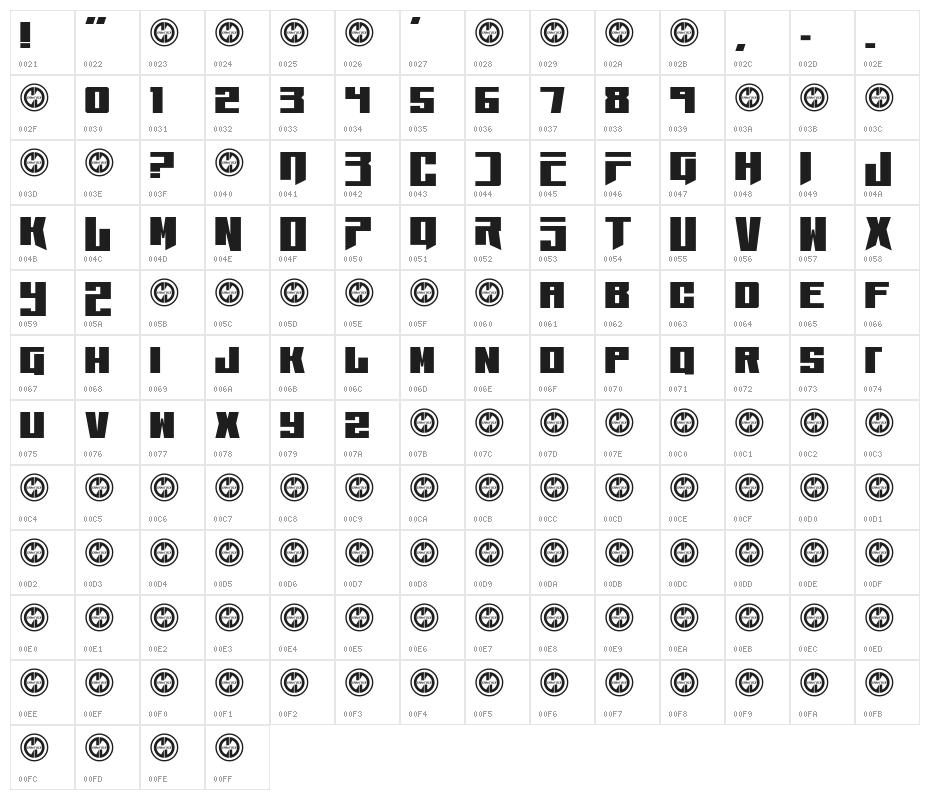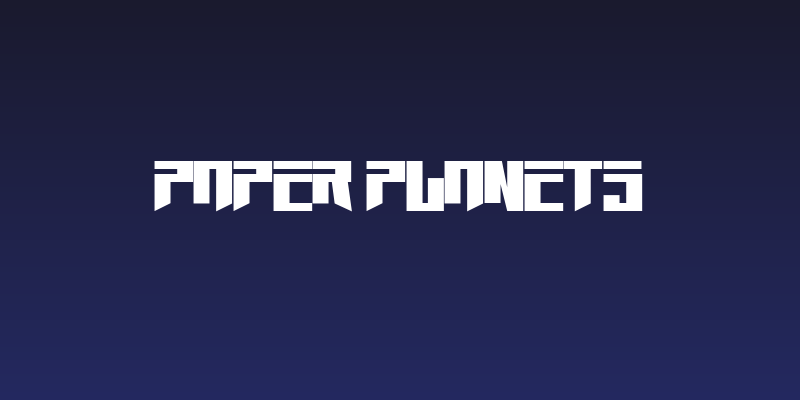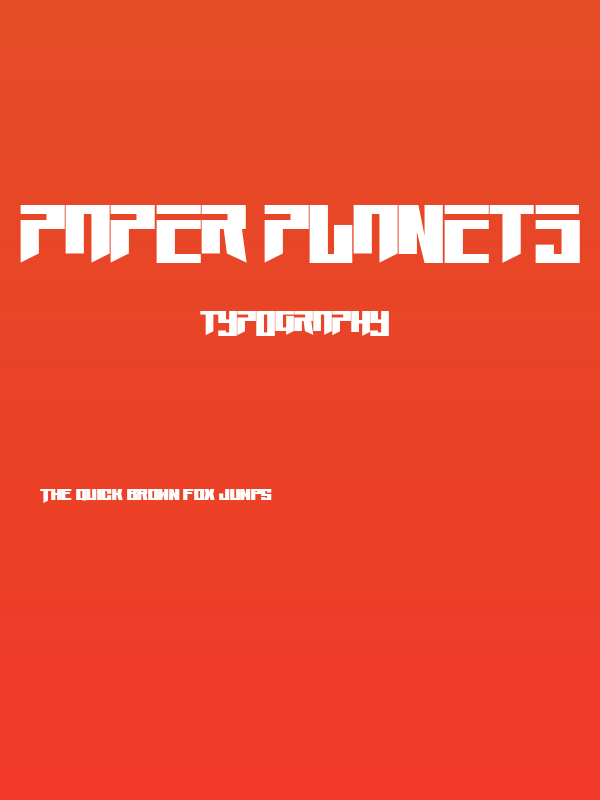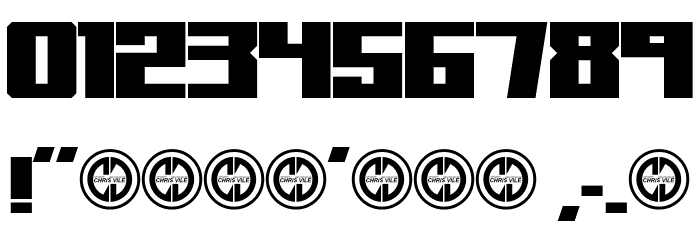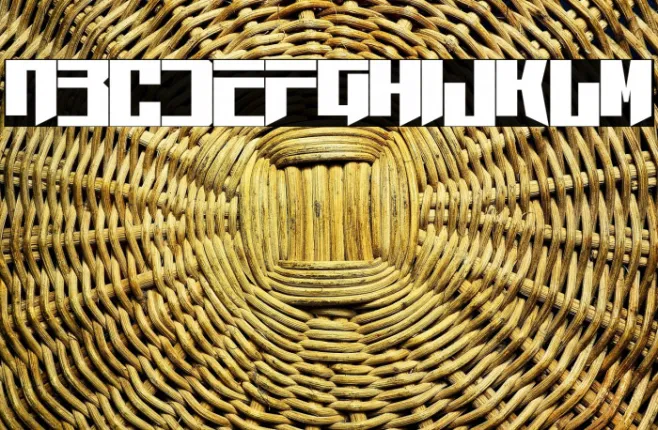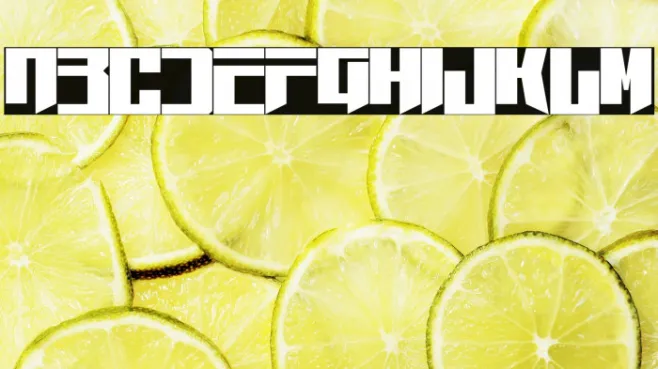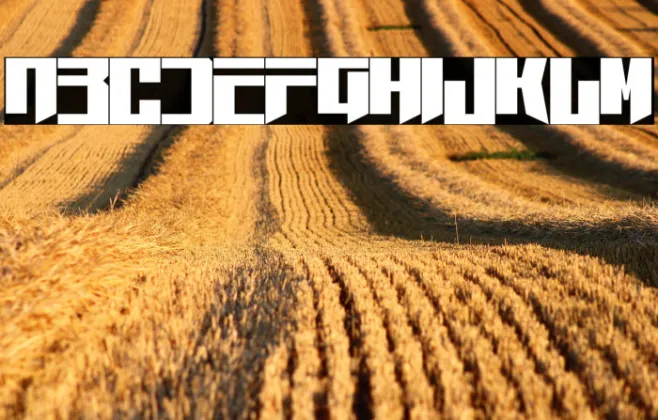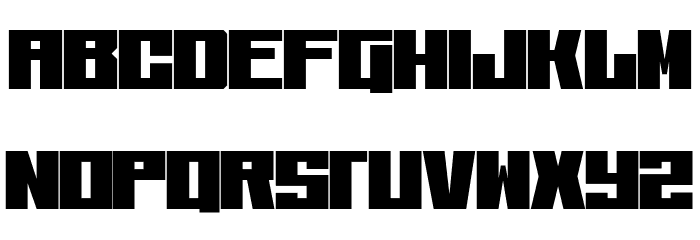
Paper Planets Font
Paper Planets Description
This font features a bold, geometric design with sharp angles and a futuristic aesthetic. The characters are constructed with thick, blocky lines that create a sense of strength and stability. The uppercase letters are particularly striking, with unique cuts and shapes that give them a dynamic, almost mechanical appearance. The numbers and special characters maintain this bold style, ensuring consistency across all elements. The font's design is reminiscent of sci-fi themes, making it ideal for projects that require a modern and edgy look.
PAPER-PLANETS UPPERCASE
PAPER-PLANETS LOWERCASE
PAPER-PLANETS OTHER CHARS
| Overall Style | Futuristic, Mechanical |
| Proposed Projects | Ideal for sci-fi themed posters, video game titles, tech branding, and futuristic designs. |